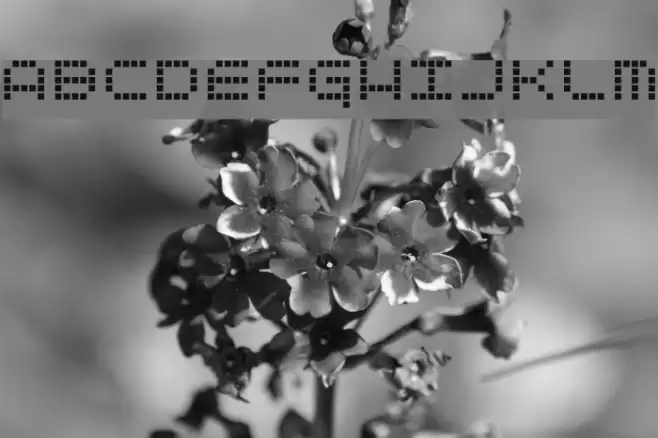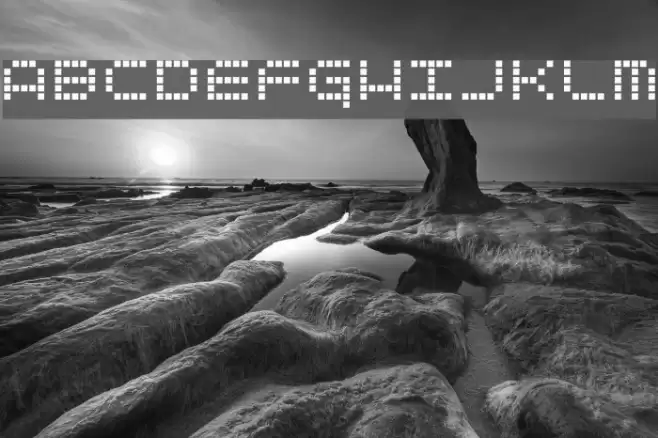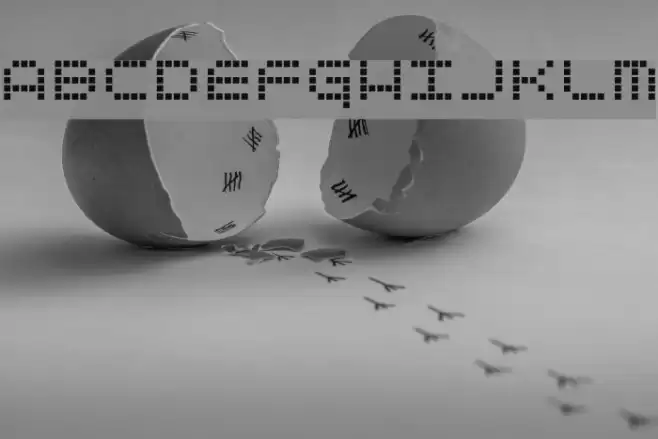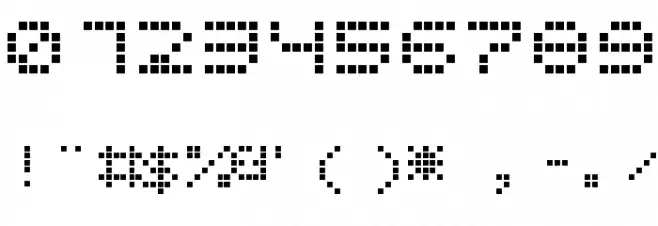
ticker Font
ticker Description
This font is a pixelated, grid-based typeface that mimics the appearance of digital displays or retro video game text. Each character is composed of small, uniform squares, giving it a distinctly digital and blocky aesthetic. The uppercase and lowercase letters, as well as numbers and special characters, maintain a consistent pixelated style that is both geometric and minimalistic. The design is reminiscent of early computer fonts, making it ideal for projects that aim to evoke a sense of nostalgia or digital themes.
A pixelated, grid-based font with a digital, retro aesthetic from Dotted fonts.
- Proposed Projects: Ideal for digital displays, retro-themed designs, video game graphics, and tech-related branding.
- Overall Style: Retro, Digital
- Use Case: Headlines, Logos, Digital Displays